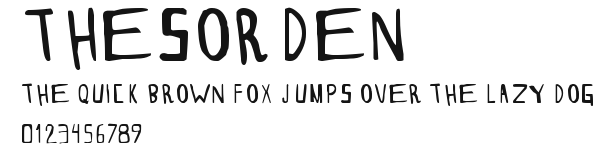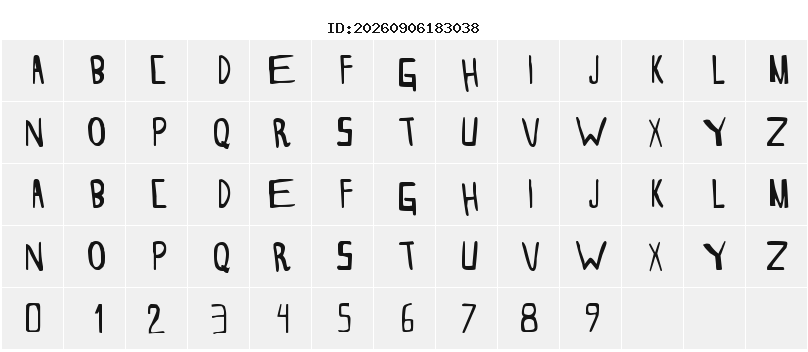
THESORDEN Preview
• Font Name: THESORDEN
• Full Font Name: THESORDEN
About THESORDEN.ttf
THESORDEN.ttf is a modern, elegant sans-serif font designed for ultimate readability and visual harmony. Perfect for branding, headlines, web design, and print materials.